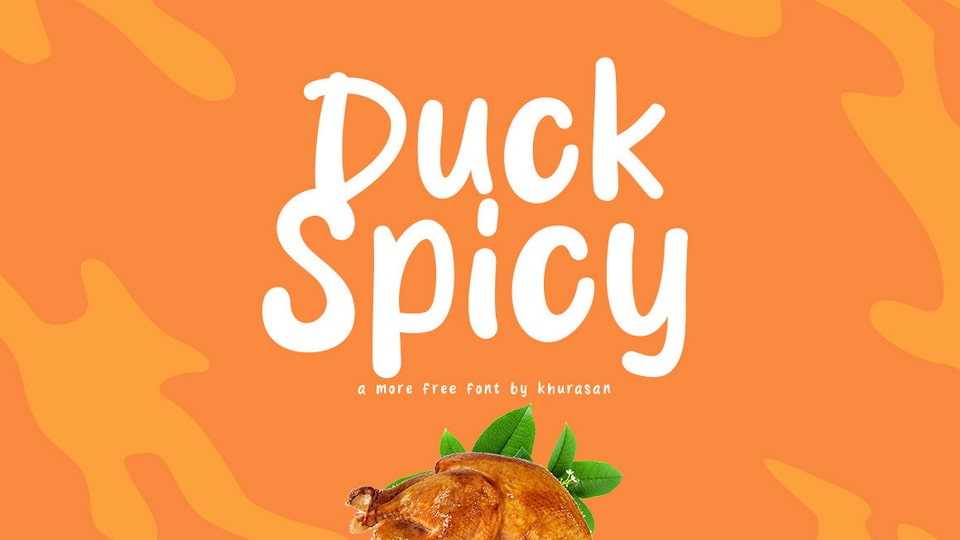
Download Duck Spicy is a handwritten font created with a perfect harmony of simplicity and playfulness. Its clean and uncomplicated letterforms exude a friendly and approachable vibe, making Duck Spicy the ideal font for projects that call for a lighthearted and personal touch.